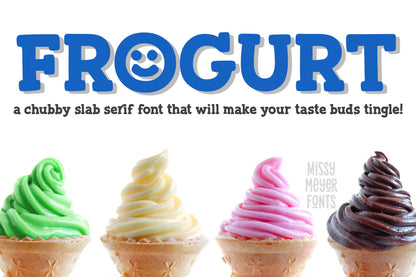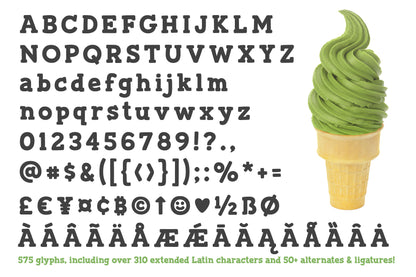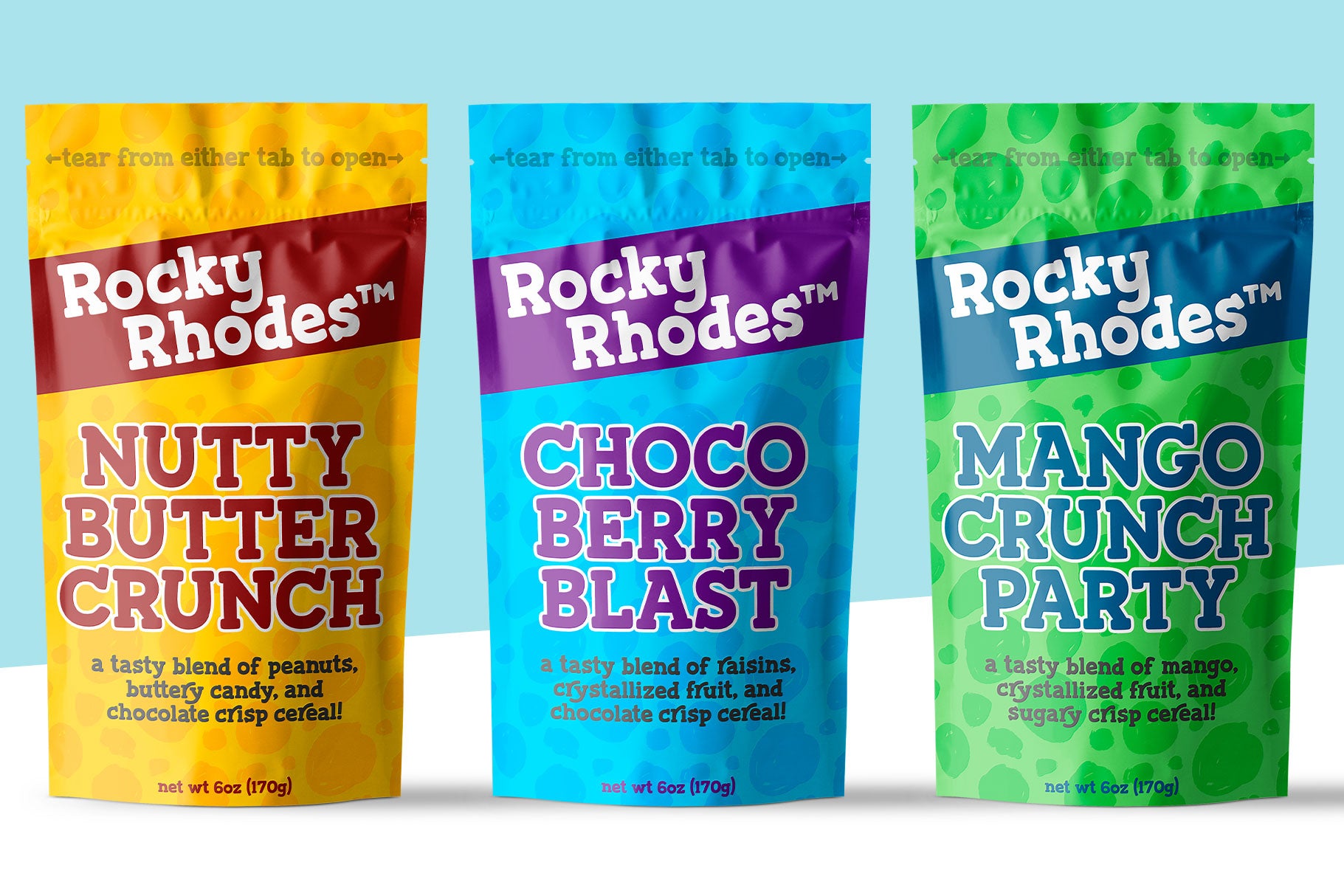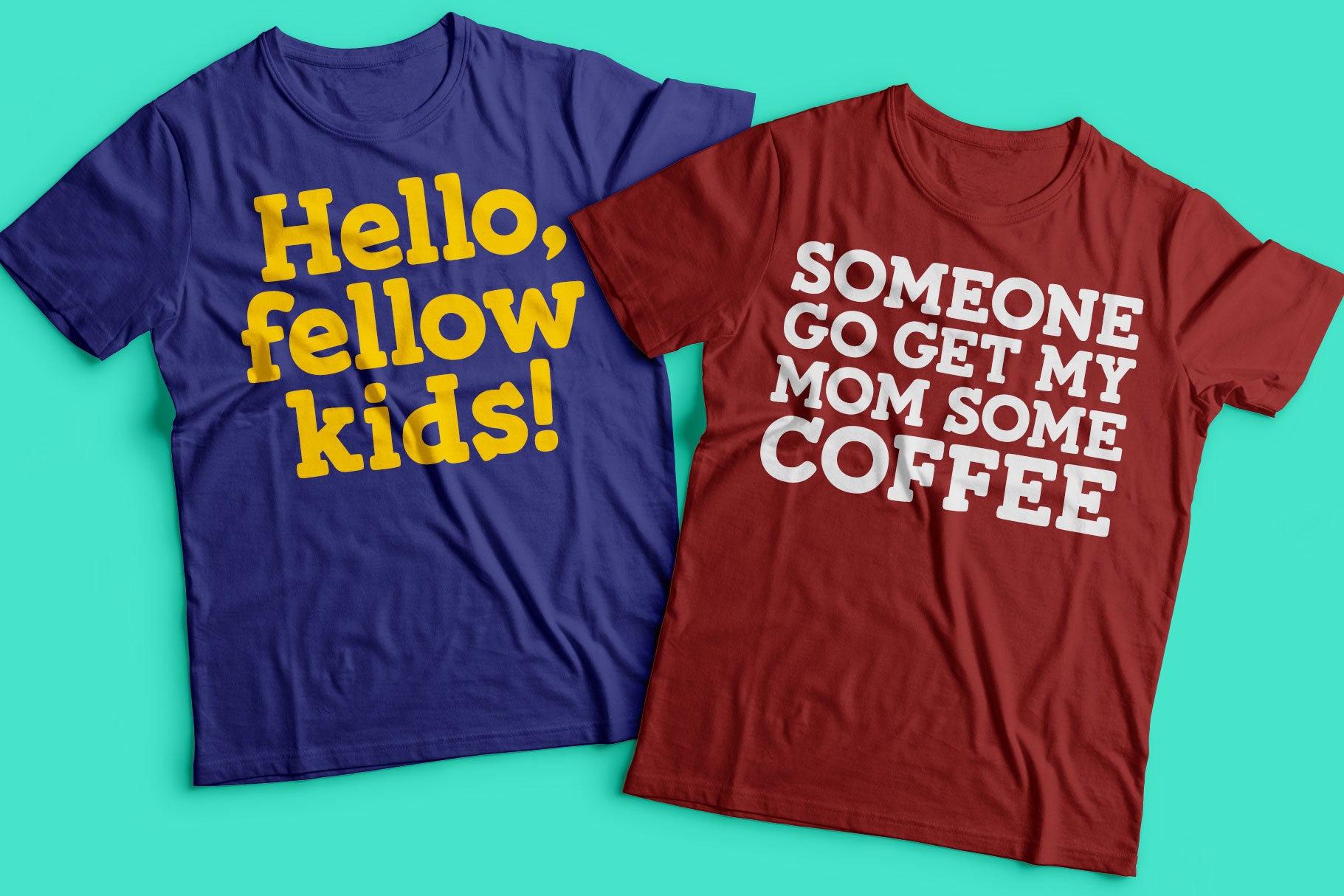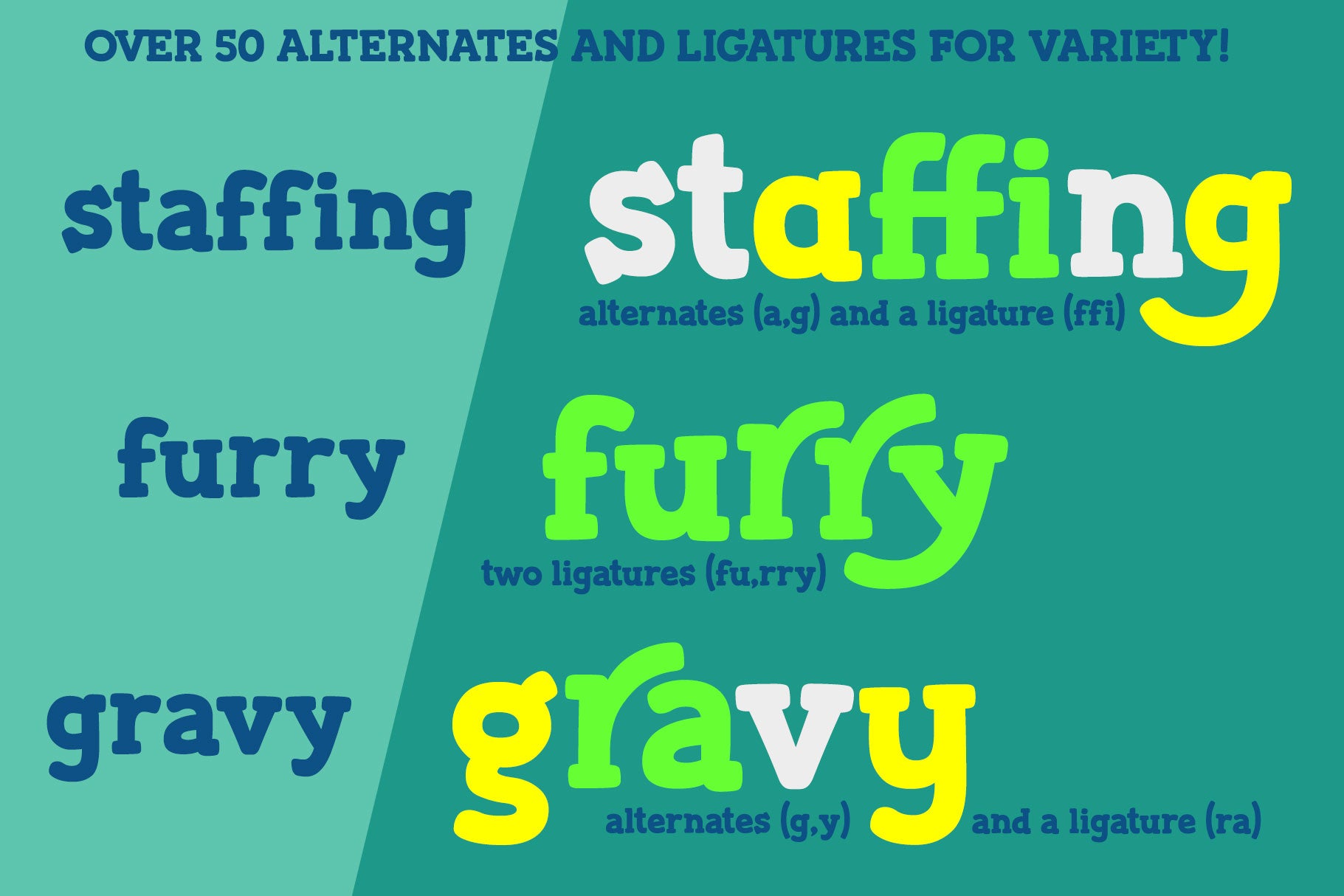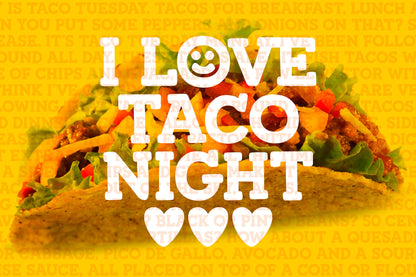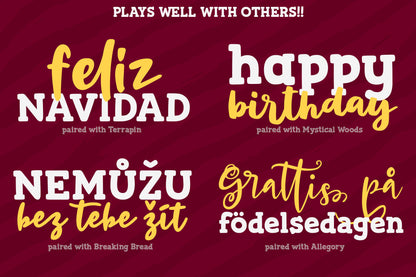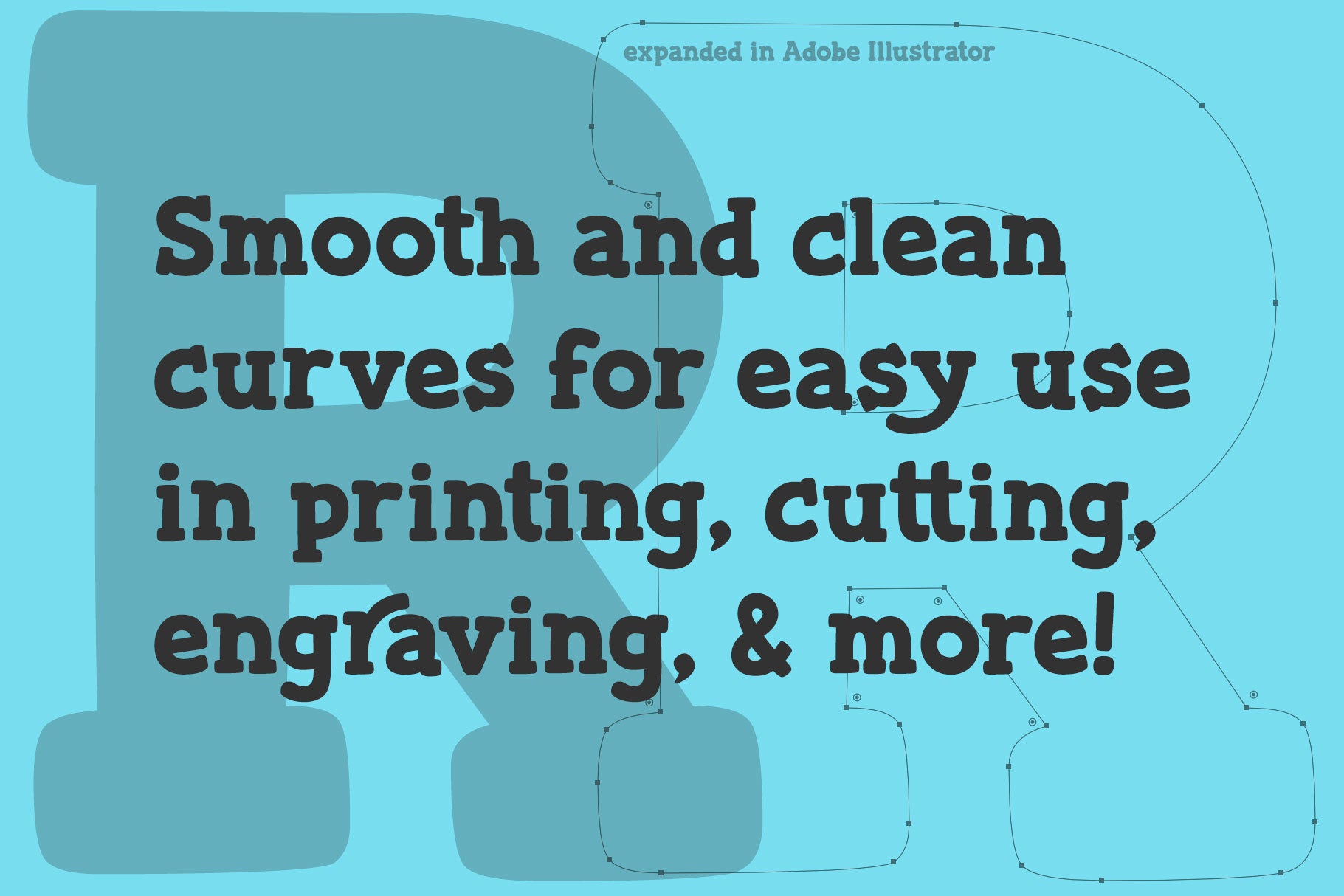
Frogurt is a soft, plump, rounded slab serif font full of fun! Its fat curves make me think of frozen yogurt, and I've always preferred the shorthand "frogurt" to "fro-yo."
I was inspired by a 30-year-old hand-carved wooden sign; when I went to try to find a font with a similar look, I couldn't really find anything soft and funky enough!  It was a real Goldilocks situation: that one was too thin, that one's corners were too sharp, that one's baseline was too strict. So since I couldn't find something I liked, I made something I liked!
I gave Frogurt big pillowy slab serifs, a slightly irregular baseline, and just enough tilt and variation to be fun while still keeping things really clean and readable. The outlines are cleaned up and sharp, so Frogurt will work well for both printing and cutting.
Frogurt clocks in with just over 570 glyphs total, including all of the basics (A–Z, a–z, 0–9, and a ton of punctuation), plus over 310 extended Latin characters for language support, and over 50 alternates and ligatures to add some variety and flair.